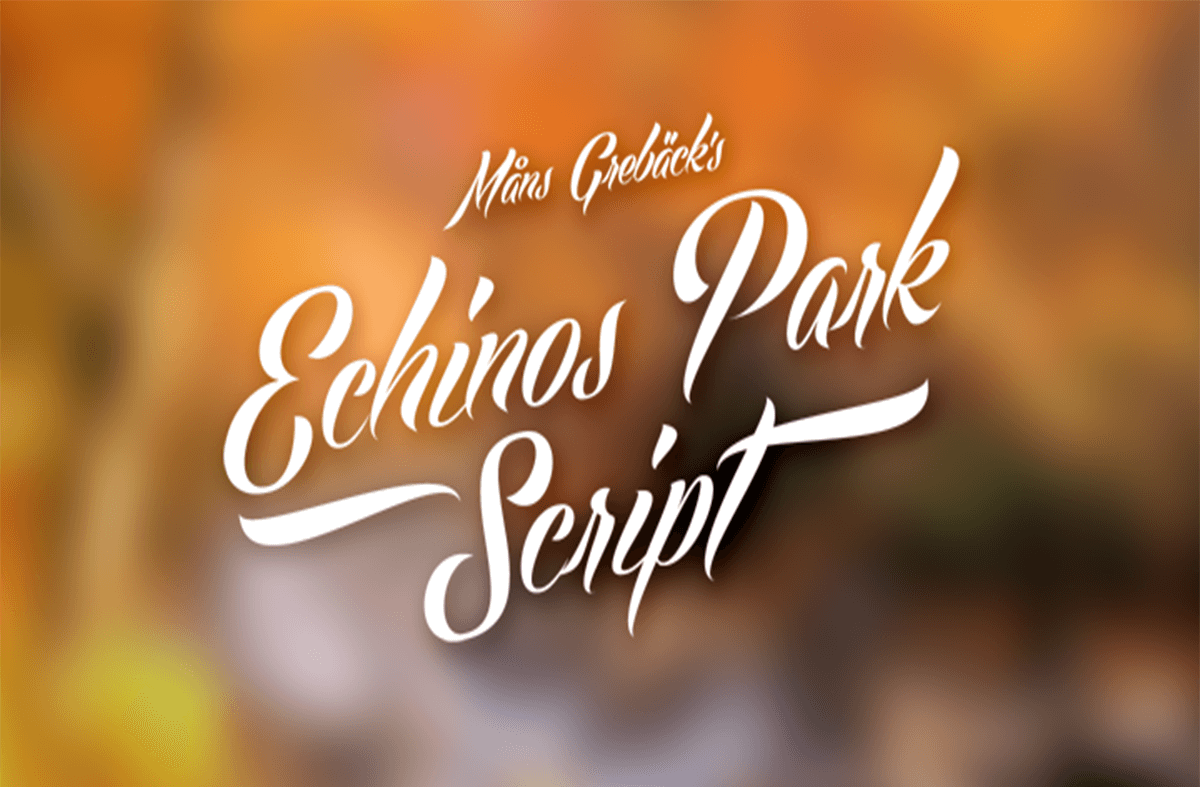
Echinos Park Script Font
Echinos Park Script Font High quality script font with multilingual support and a large number of special characters. Designed by Måns Grebäck, this hand-crafted typeface works great in logotypes and for titles and slogans.